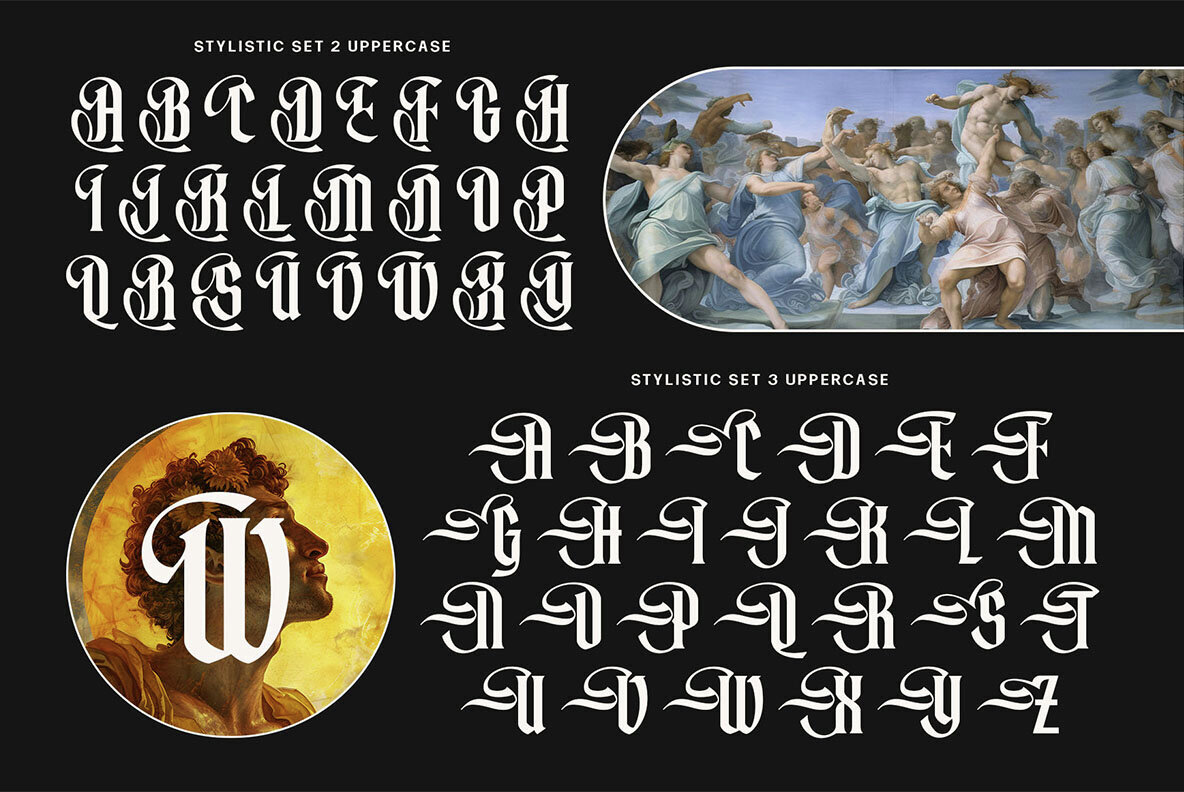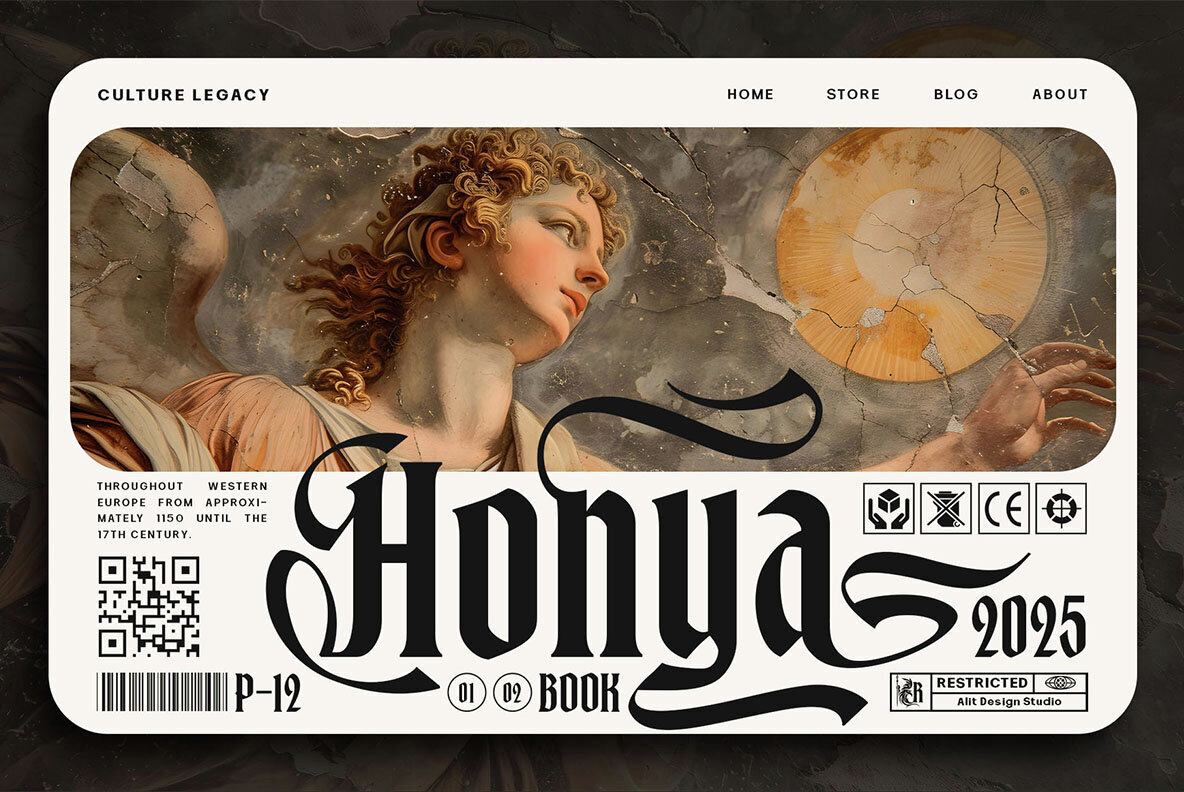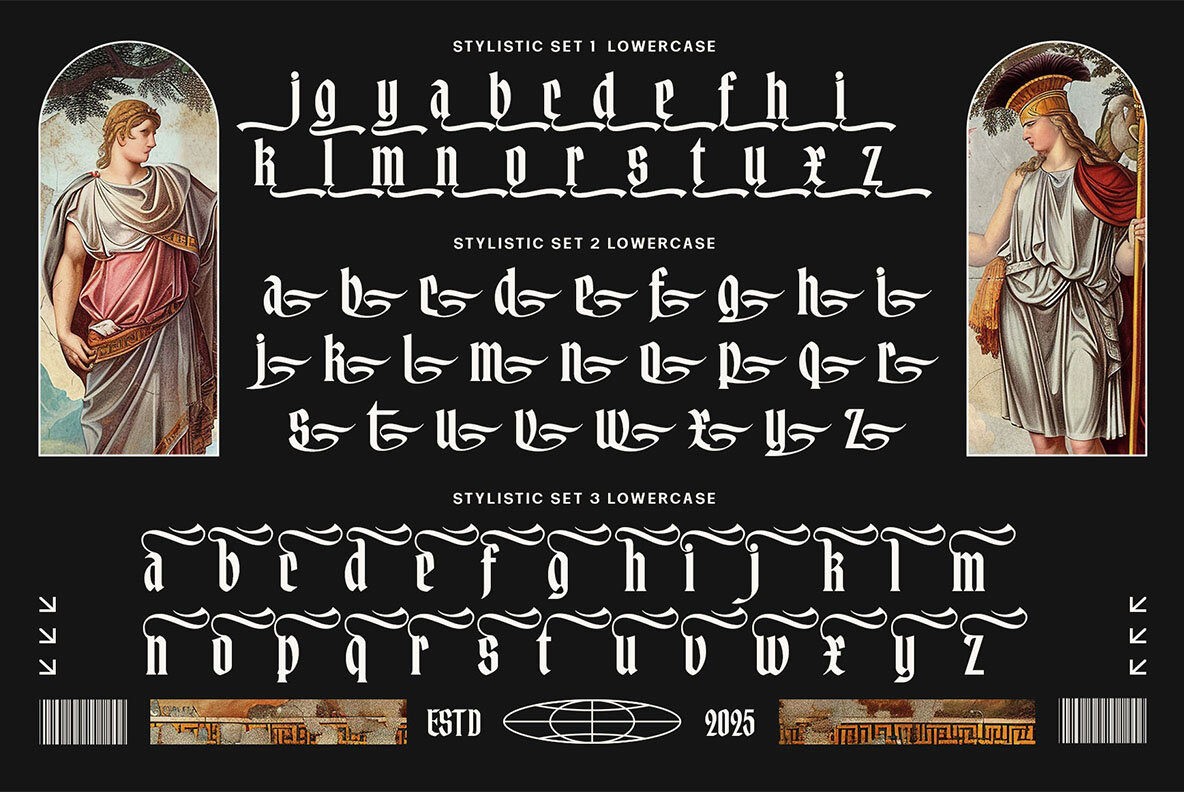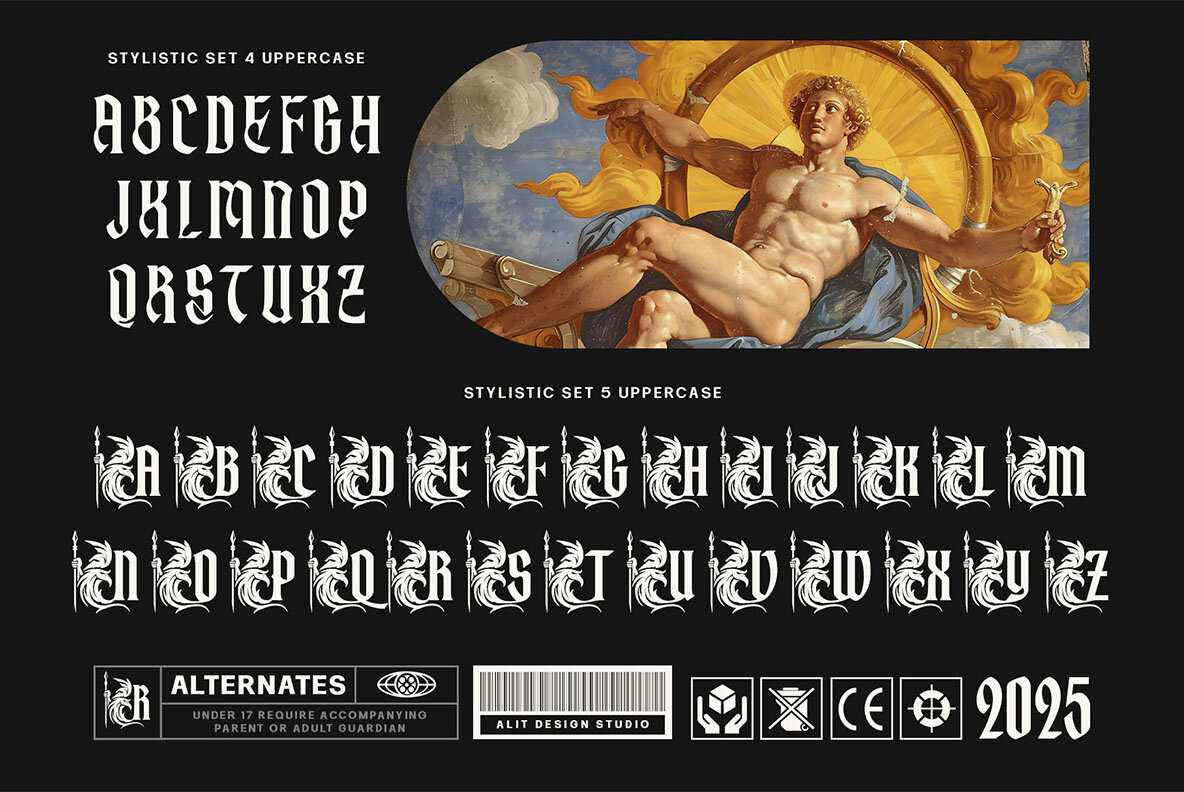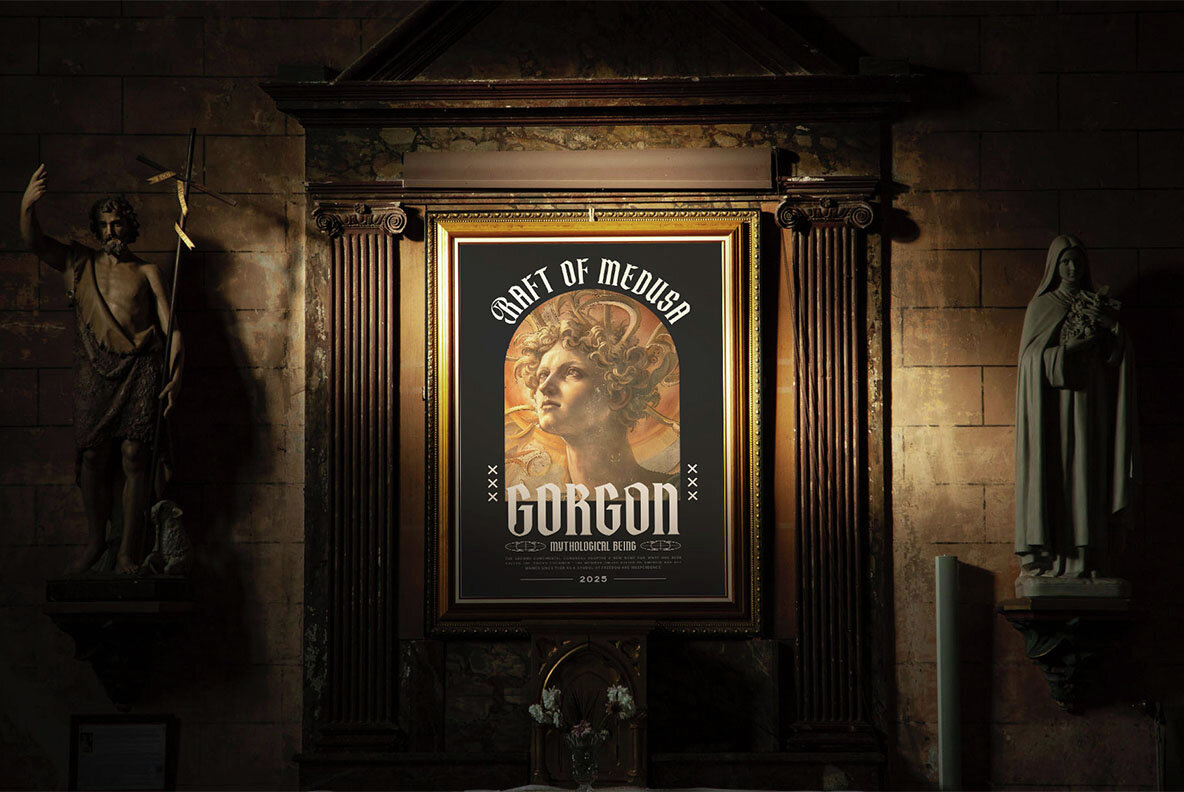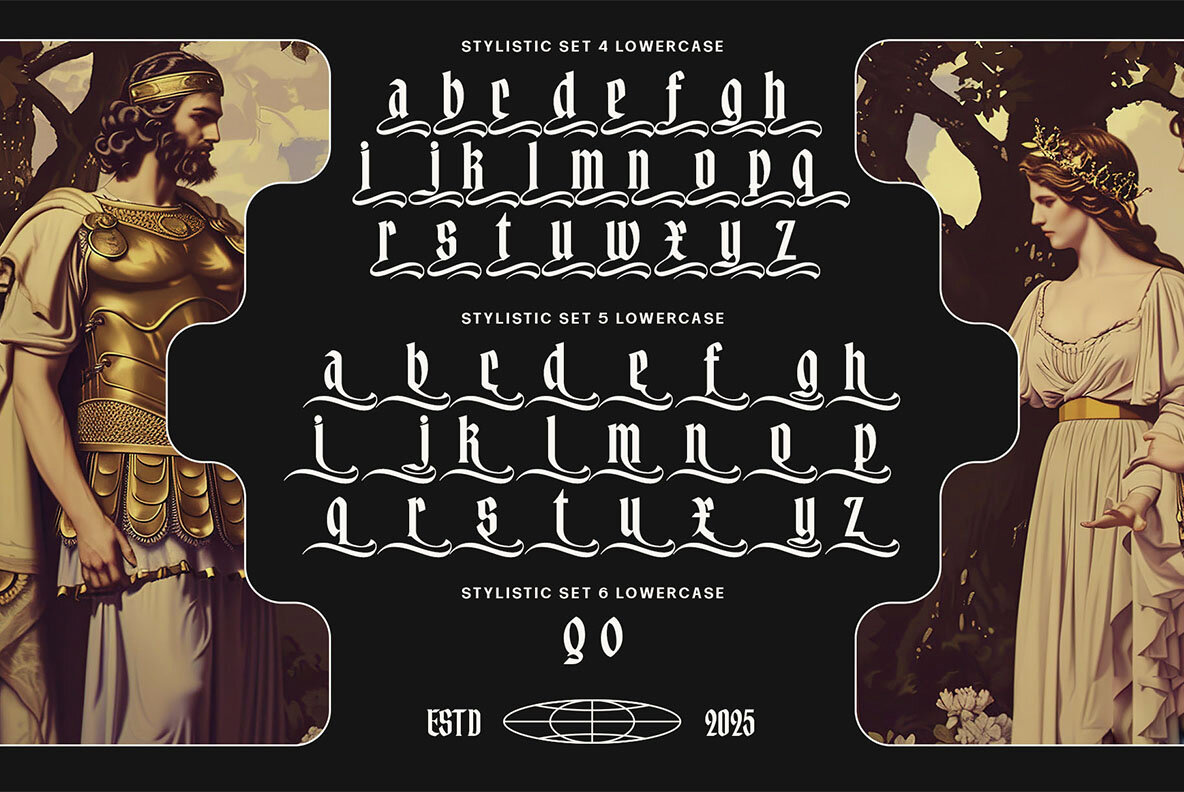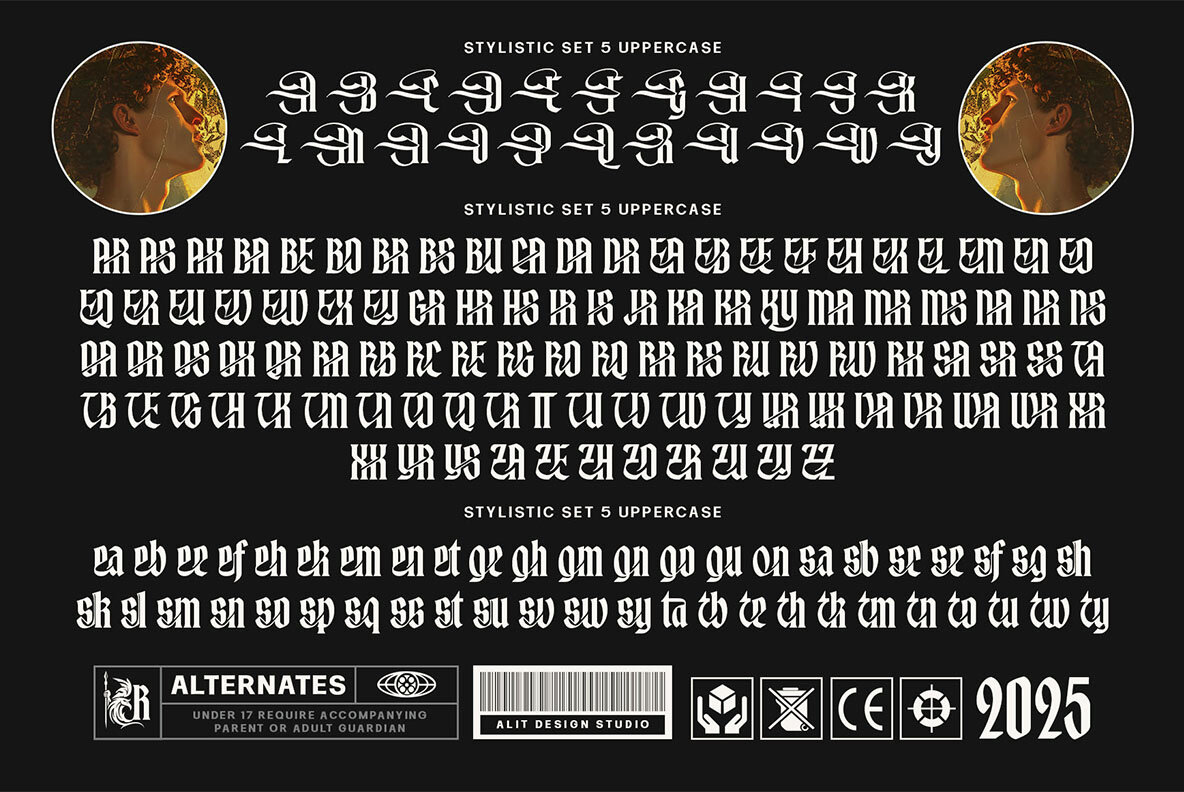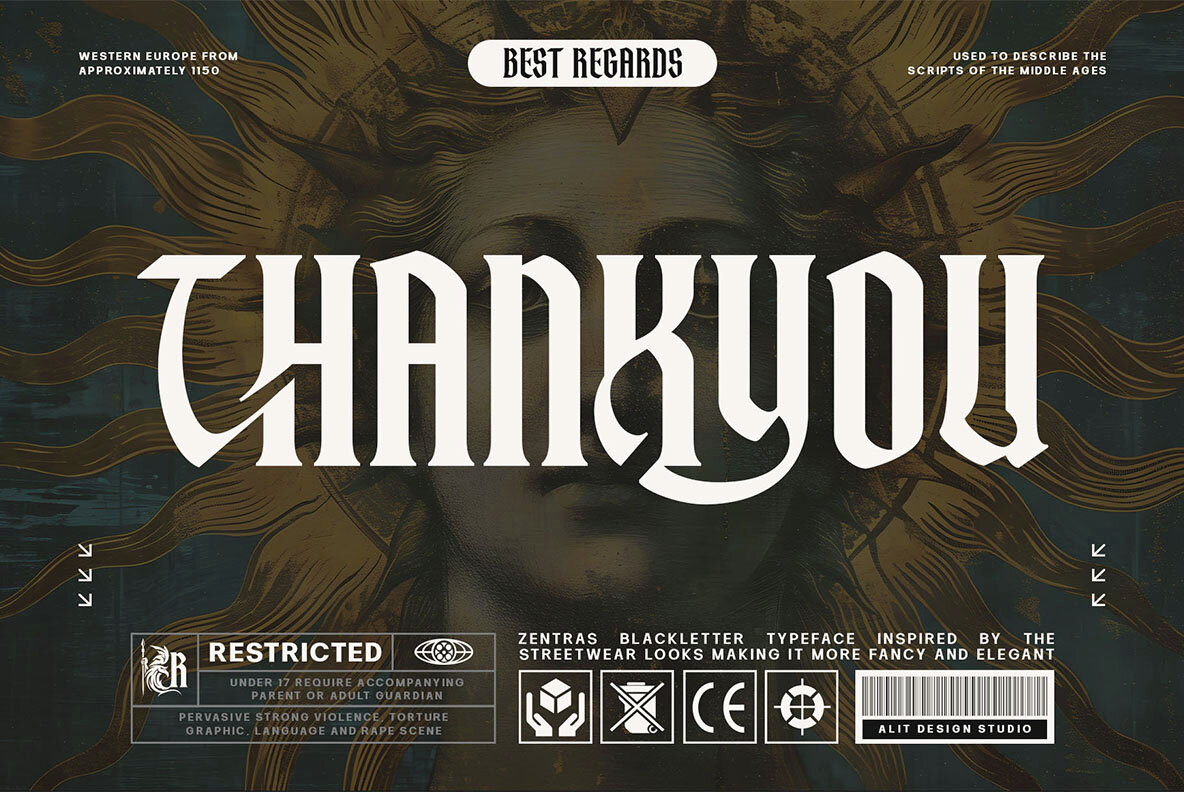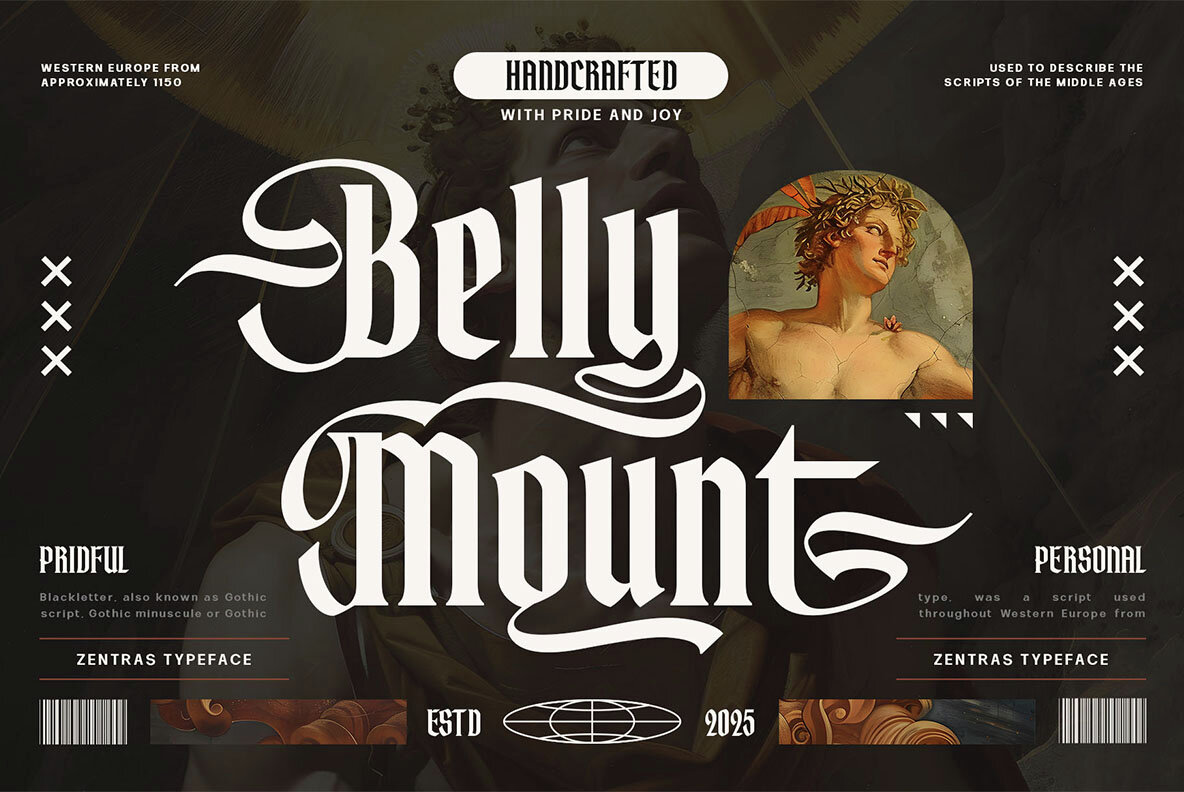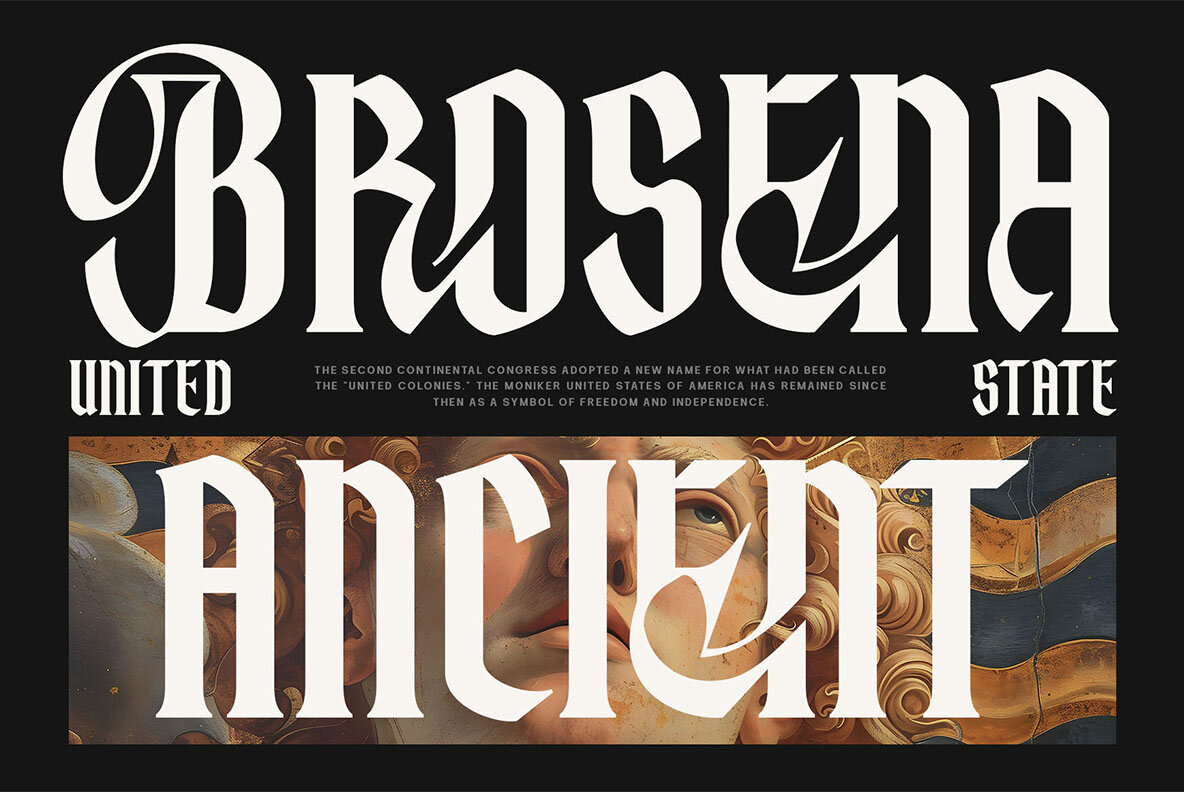
Zentras Font
Zentras Regular
Zentras, a striking blackletter typeface, melds the essence of Roman heroism with contemporary streetwear flair. Its design, featuring sharp serifs and sturdy lines, stands out in any project, offering a unique blend of traditional and modern styling. Crafted to evoke strength and elegance, Zentras delivers a typeface that embodies ancient and modern, regal and raw. Suitable for any design seeking a touch of ancient valor.Zentras: Bold Meets Elegance